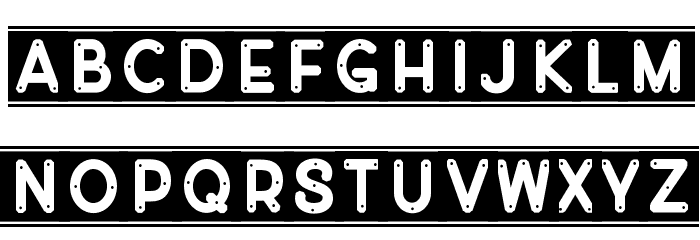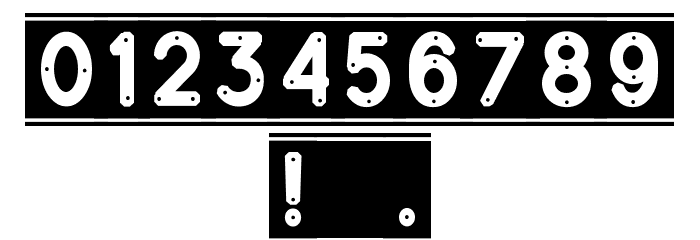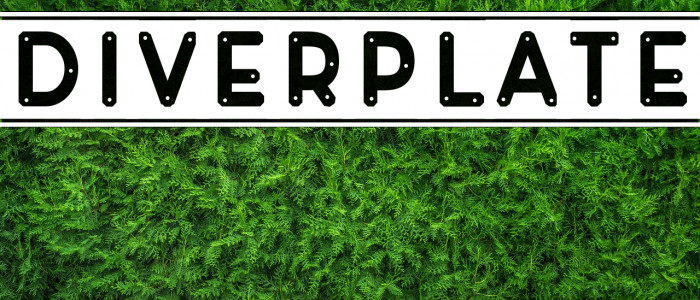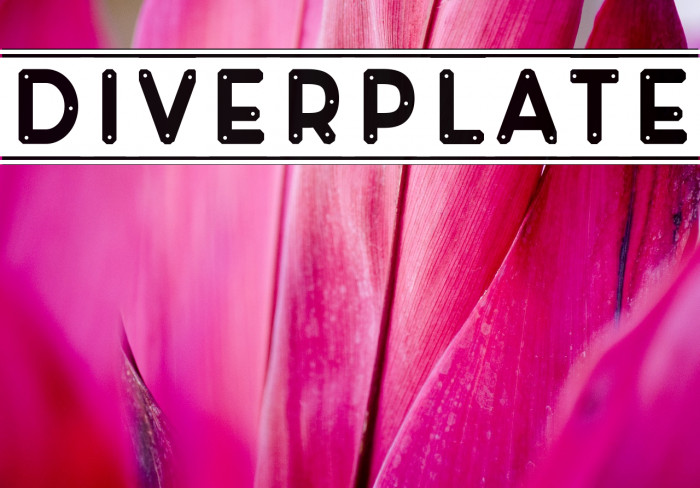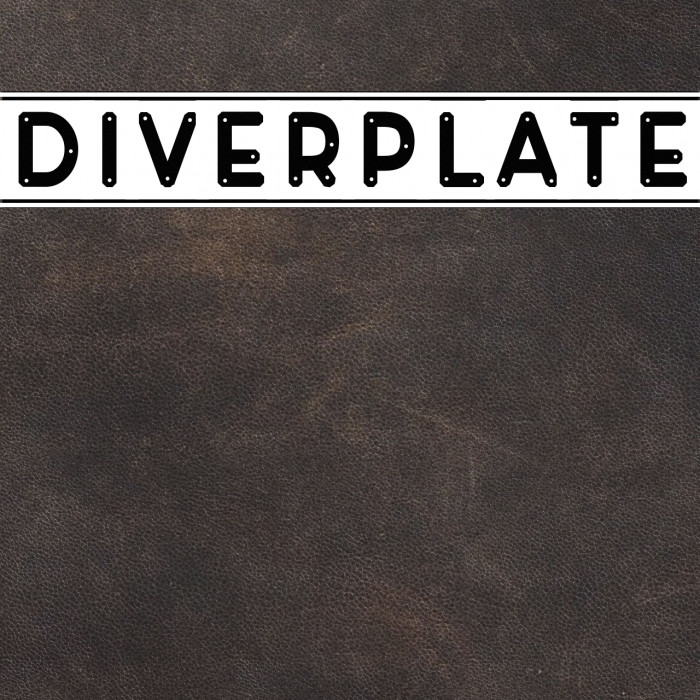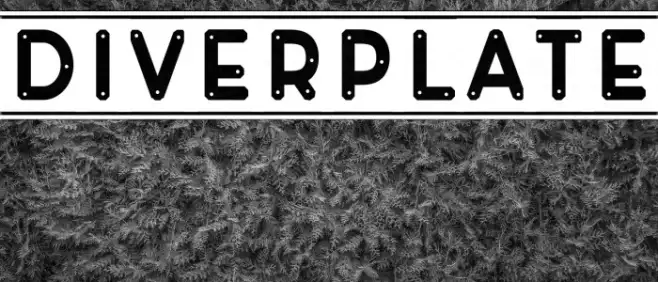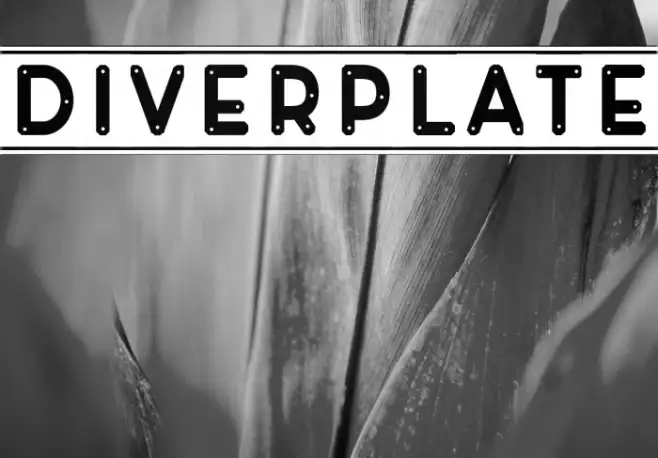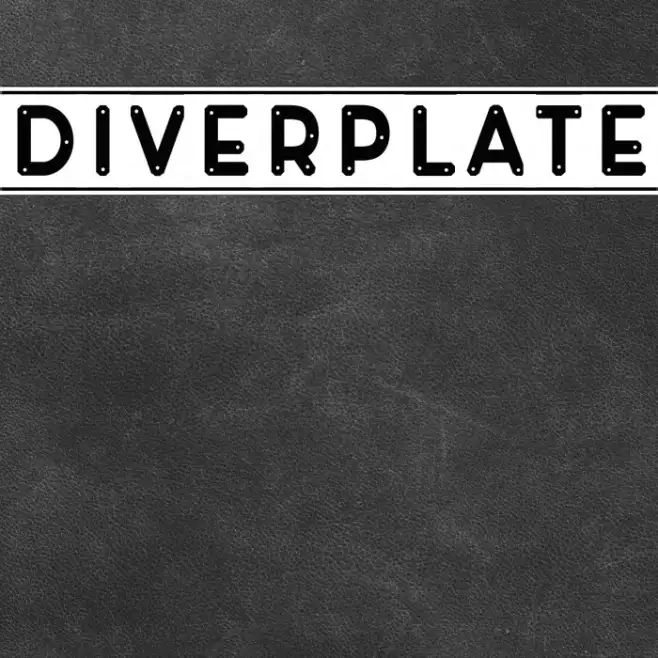
Diverplate Font
This font features a bold, industrial design with a unique twist. Each character is adorned with small circular cutouts, giving it a mechanical and riveted appearance. The uppercase and lowercase letters maintain a consistent style, with clean lines and geometric shapes. The numbers follow the same design principle, ensuring uniformity across all characters. The font's distinct style makes it stand out, perfect for projects requiring a strong, industrial aesthetic. The special characters, including punctuation marks, are designed to match the overall theme, providing a cohesive look. This font is ideal for creating eye-catching headlines, posters, and branding materials that need a touch of ruggedness and modernity.
A bold, industrial font with circular cutouts for a mechanical look.
- Proposed Projects: Ideal for industrial-themed posters, branding, and headlines.
- Overall Style: Industrial, Modern
- Use Case: Headlines, Posters, Branding